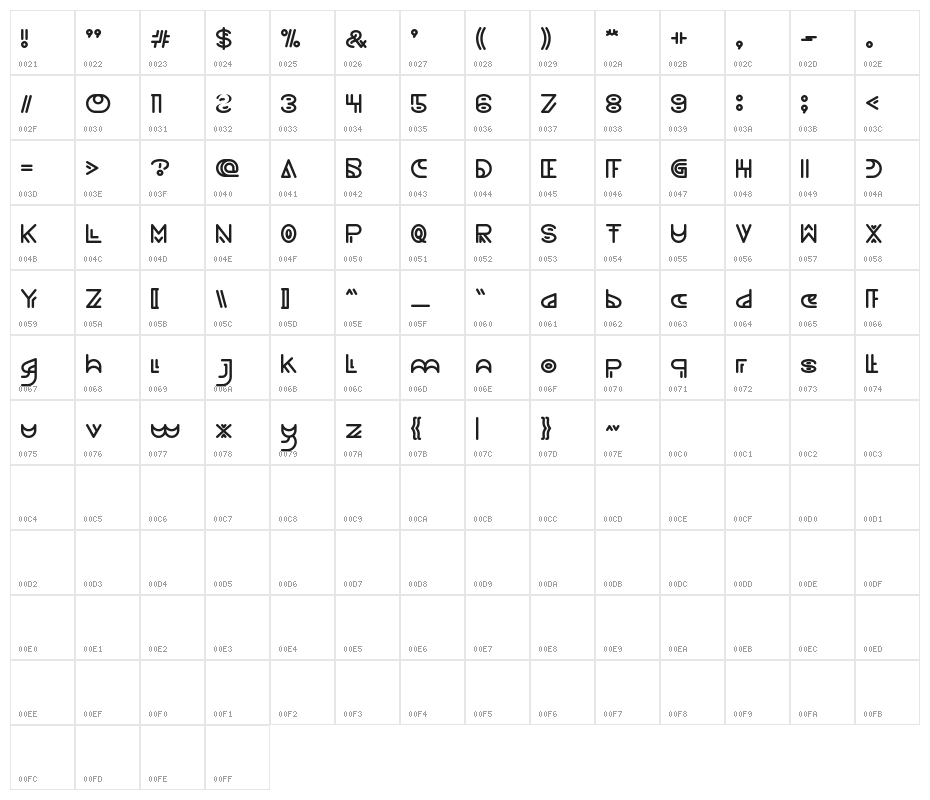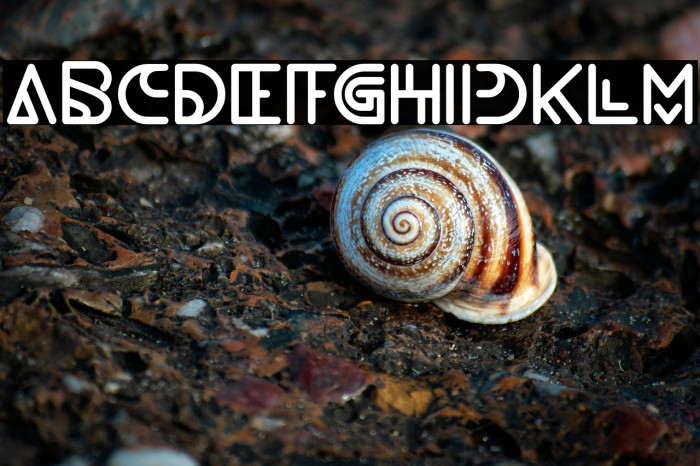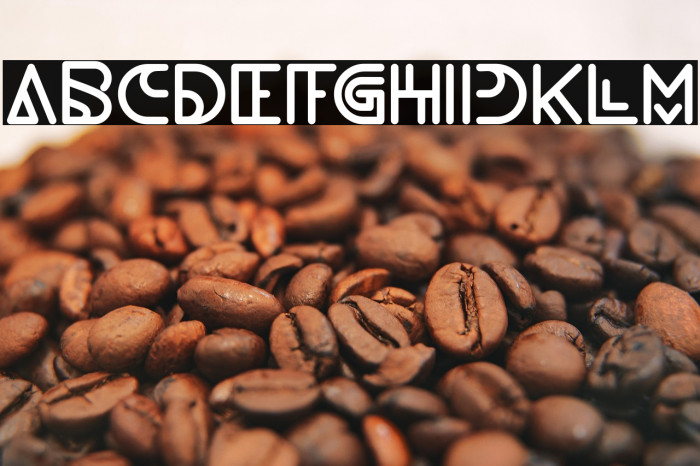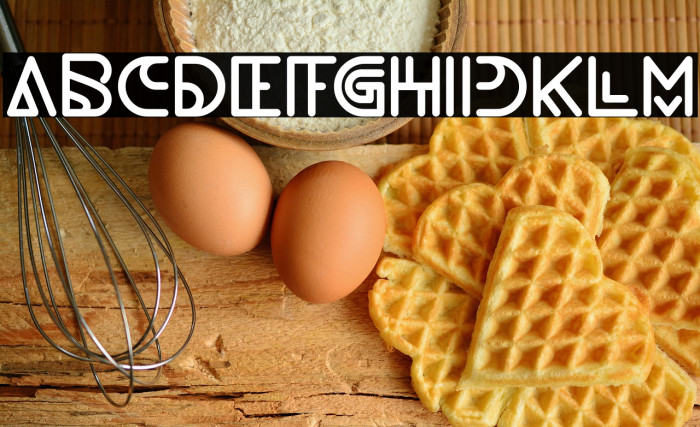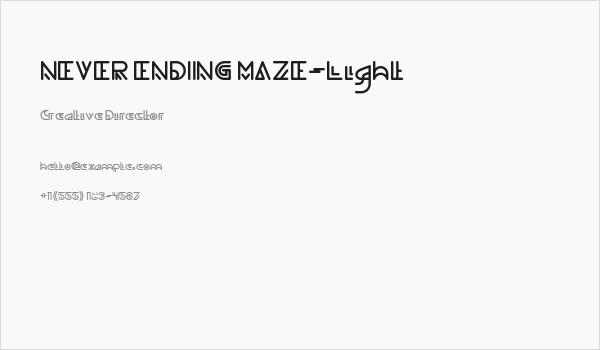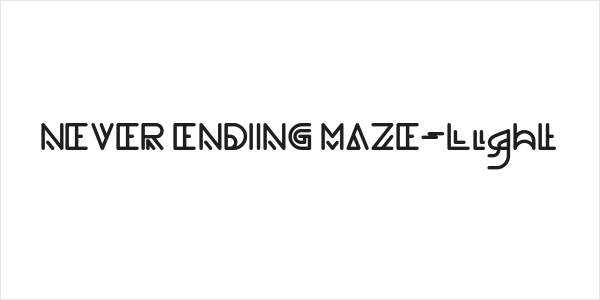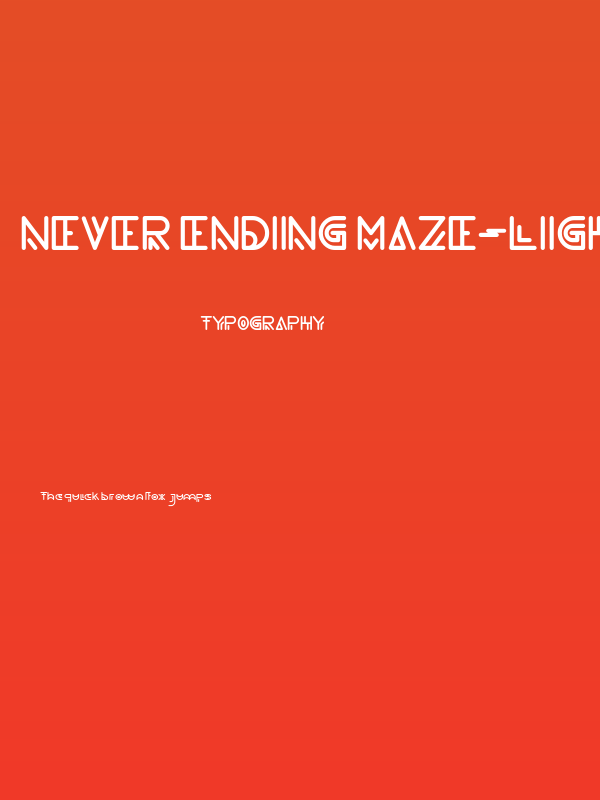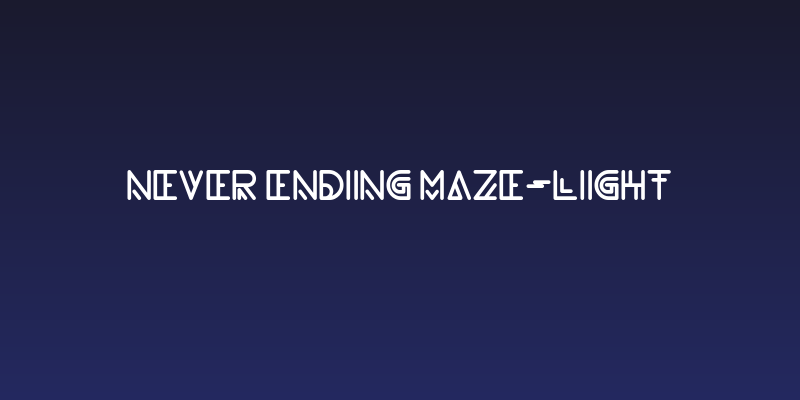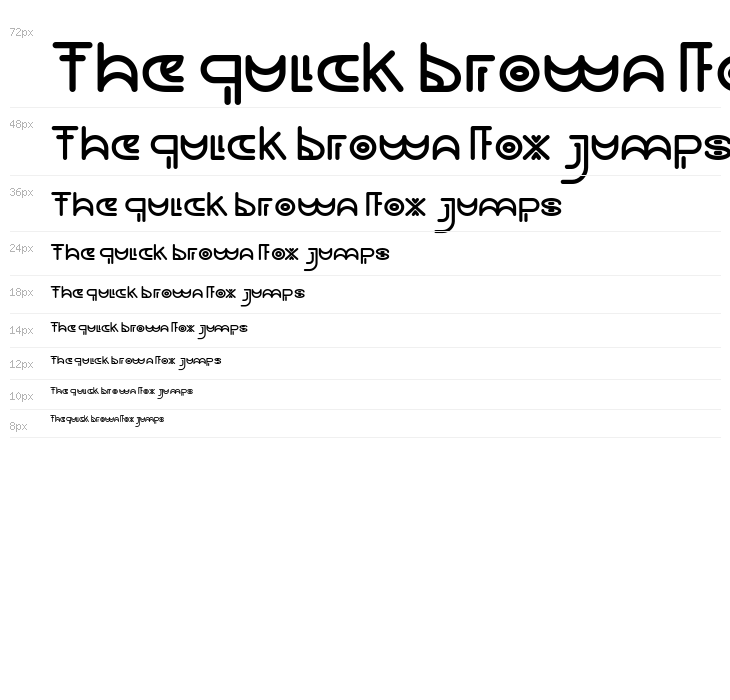
NEVER ENDING MAZE-Light Font
NEVER ENDING MAZE-Light Description
This font features a unique and modern design with geometric elements and a futuristic feel. The characters are constructed with bold, rounded strokes and incorporate unexpected angles and cuts, giving it a maze-like appearance. The uppercase letters are particularly striking, with a strong presence and distinct shapes. The lowercase letters maintain the same geometric style, ensuring consistency across the typeface. Numbers and special characters are designed to match the overall aesthetic, making this font versatile for various creative applications. Its boldness and distinctiveness make it ideal for attention-grabbing designs.
| Proposed Projects | Ideal for branding, posters, album covers, and futuristic design projects. |